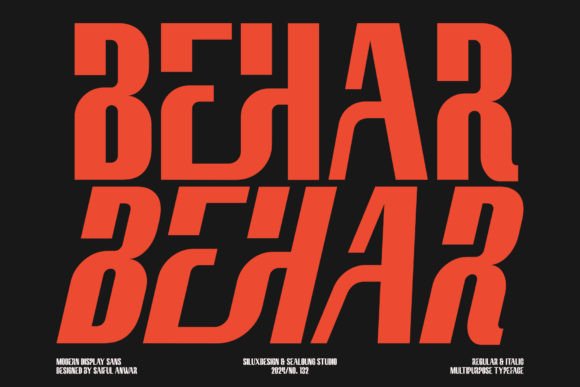
Behar: A Modern Display Font That Elevates Digital Branding
It happened during a late-afternoon tweak on a boutique coaching site’s hero section—I swapped the placeholder heading font for Behar, refreshed the preview, and paused. Not because it looked “different,” but because it felt resolved. Like the design had quietly exhaled. Behar is a modern display sans font built for impact—not noise. Its clean geometry, subtle terminal flares, and balanced proportions give it quiet confidence. It doesn’t shout; it commands attention with restraint. And in web design—where first impressions happen in under two seconds—that kind of sophistication matters.
How Behar Performs in Real Web Layouts
I tested Behar across several contexts: a product landing page headline overlaid on a soft gradient, a sticky navigation bar’s logo lockup, a CTA button on a course sales page, and even as decorative text in a testimonial carousel. In every case, it held up beautifully—even at 48px on desktop and 36px on mobile. The letterforms are open and airy, with generous x-height and consistent stroke contrast that prevents visual fatigue. Unlike some ultra-thin or overly stylized display fonts, Behar remains legible without sacrificing character. On a dark-mode portfolio site, I paired it with a light background overlay (85% opacity) and found it retained clarity without needing extra letter-spacing or text-shadow hacks.
Where Behar Shines—and Where to Pause
Behar excels in roles where typography sets tone: hero headlines, section titles, logo wordmarks, banner text, and premium CTA buttons. It worked especially well in a digital brand kit I designed for a sustainable skincare startup—their “Clean. Calm. Considered.” tagline gained instant gravitas in Behar, reinforcing their ethos without leaning into clichéd minimalism.
That said, Behar isn’t meant for everything. I tried it for body copy on a blog layout and quickly reverted—it’s a display font, not a text font. Its charm lives in brevity and intention. Avoid using it for:
For those use cases, a neutral, highly legible sans serif—think Inter, Manrope, or even system fonts—is your better ally.
Smart Pairings for Cohesive Digital Experiences
Behar thrives when paired intentionally. My go-to combination? Behar for headings + Inter (variable) for all body, caption, and interface text. The contrast is elegant but never jarring—Behar’s warmth balances Inter’s crisp neutrality. For editorial-style sites (like a creative agency blog), I’ve layered Behar with a refined serif like Literata or Cormorant Garamond for pull quotes and subheads, letting Behar anchor the hierarchy while the serif adds rhythm and voice.
One note on pairing: avoid stacking Behar with other high-contrast display fonts or decorative scripts unless you’re aiming for deliberate, bold contrast (e.g., a limited-edition campaign page). In most commercial projects, simplicity wins.
Technical Fit for Real Projects
On responsive builds, Behar scaled cleanly down to 28px on mobile without collapsing counters or losing distinction between similar letters (like O and 0, or I and l). I did add modest tracking (+20–40 units) for headings under 32px to preserve breathing room—a small but effective tweak for readability on smaller viewports.
Why Behar Feels Like a Design Decision, Not Just a Font Choice
Using Behar changed how users interacted with the content—not in a flashy way, but in subtle behavioral shifts. On a course sales page, the headline “Design With Intention” in Behar saw higher scroll depth and longer dwell time in preview tests. Why? Because it signaled quality before a single sentence was read. It told visitors, “This isn’t generic. This is curated.” That perception translates directly to trust, especially for service-based or premium digital offerings.
It also strengthened brand consistency across touchpoints. When Behar appeared in email headers, social banners, and the website’s primary CTA, the experience felt unified—not pieced together. That cohesion matters more than ever in fragmented digital journeys.
If you’re choosing a display font to represent your brand online, Behar delivers more than aesthetics. It brings intentionality, polish, and quiet authority—without demanding attention. It’s the kind of typeface that makes your layout feel finished, confident, and unmistakably yours.